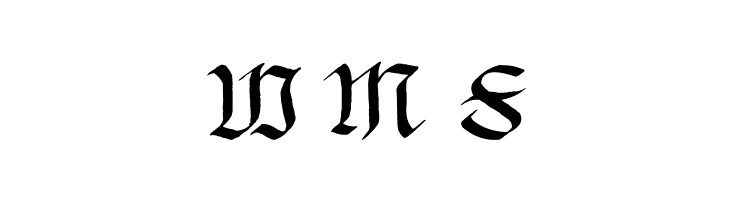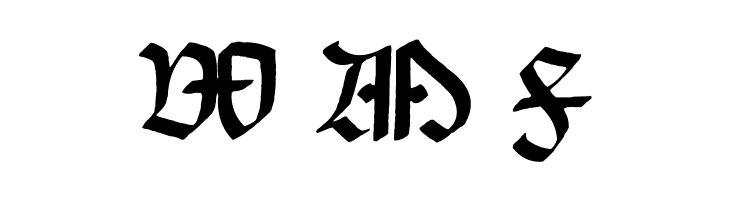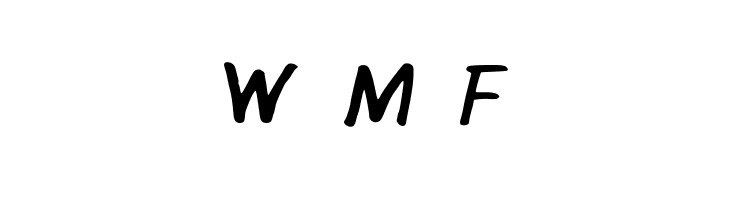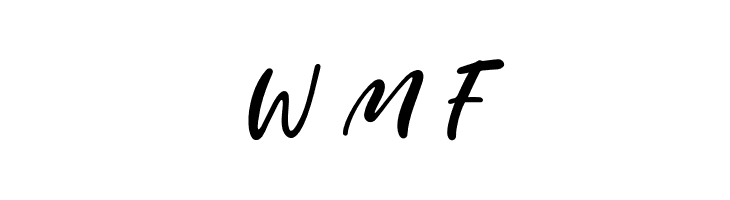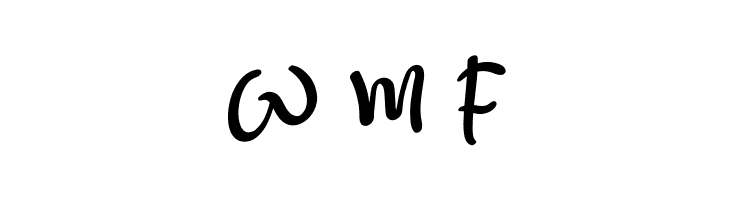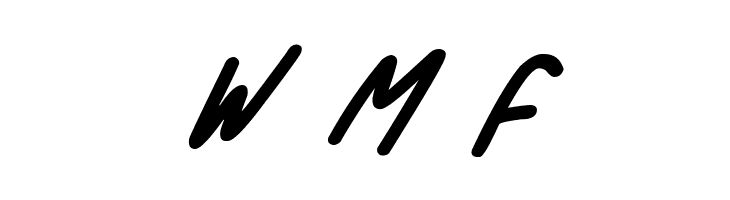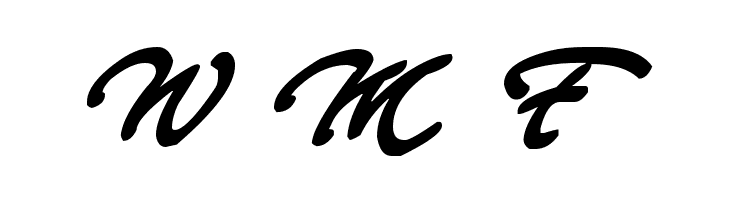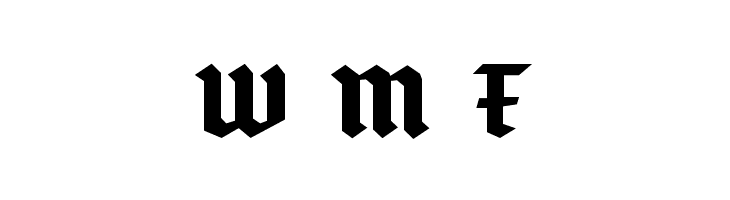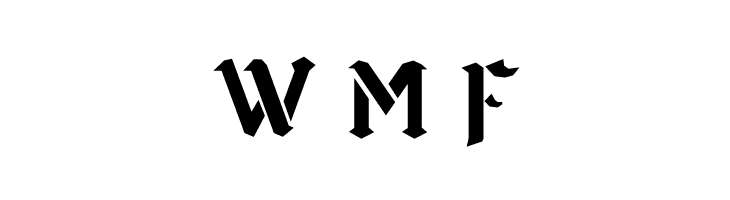
A bold, decorative font with intricate Gothic-inspired patterns.
A bold, smooth script font with flowing curves and strong strokes.
A bold, angular Gothic-style font with sharp serifs and a medieval aesthetic.
A bold, gothic-style stencil font with sharp angles and a dramatic presence.
A bold, blackletter font with sharp, angular strokes and high contrast.
A bold, traditional blackletter font with high contrast and intricate details.
A playful, handwritten font with smooth curves and a friendly appearance.
A lively, flowing script font with smooth, cursive strokes and playful elegance.
A bold, italicized font with smooth, flowing curves and a dynamic style.